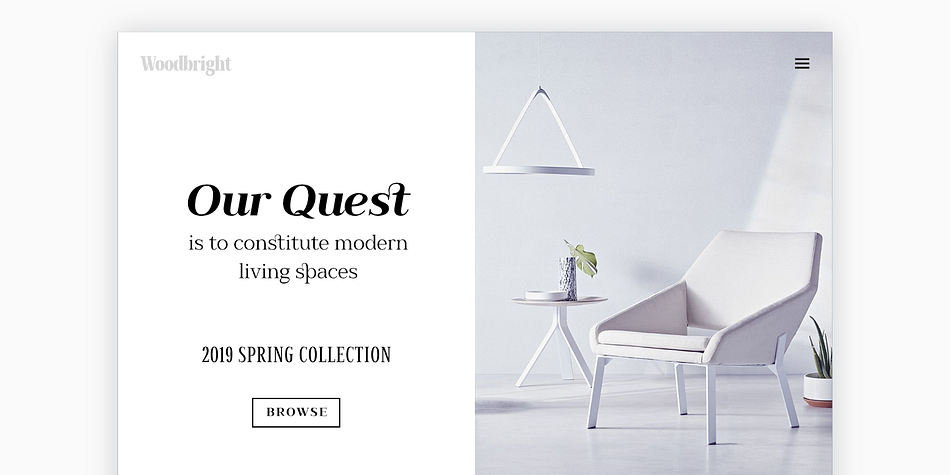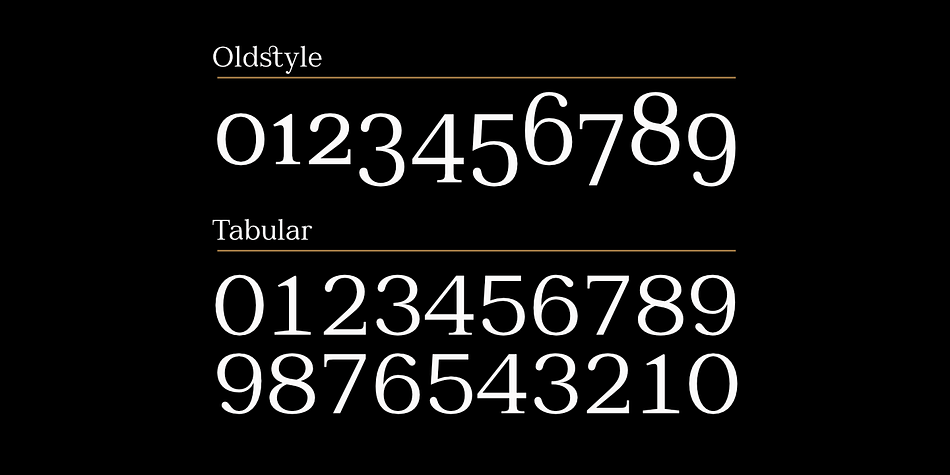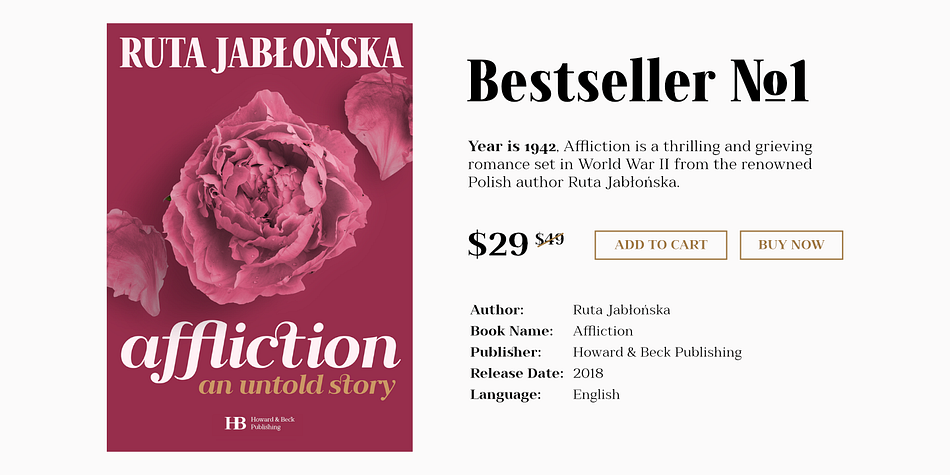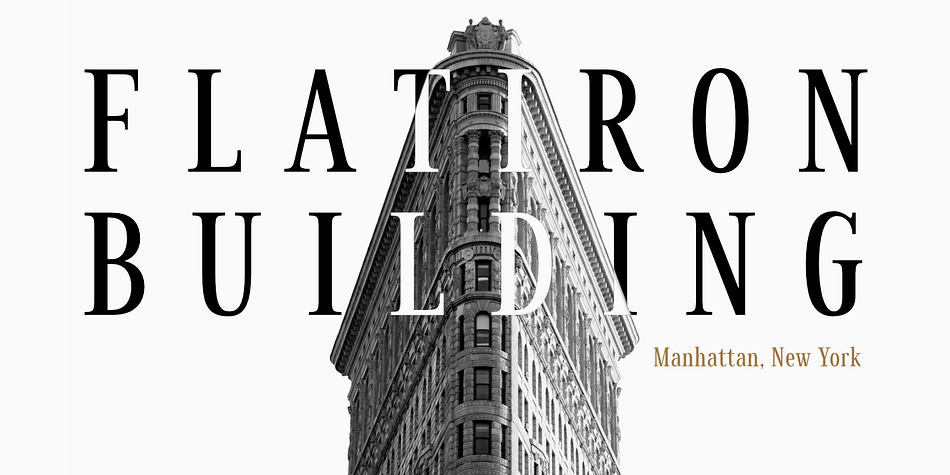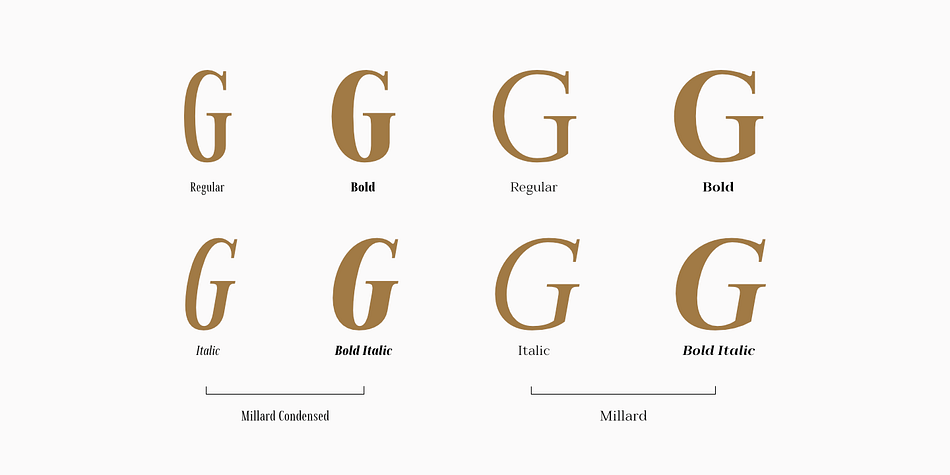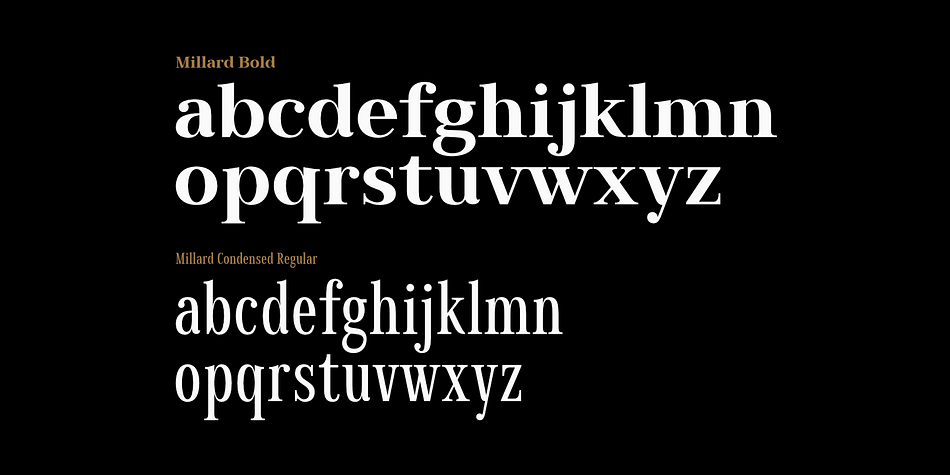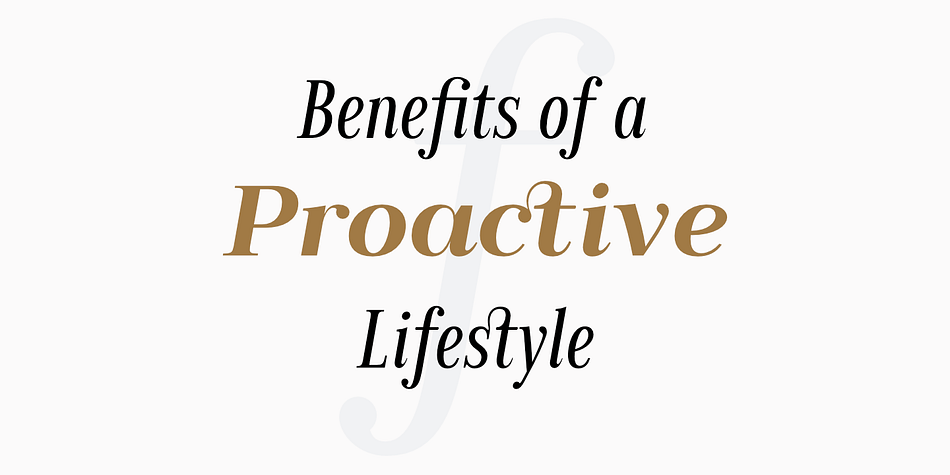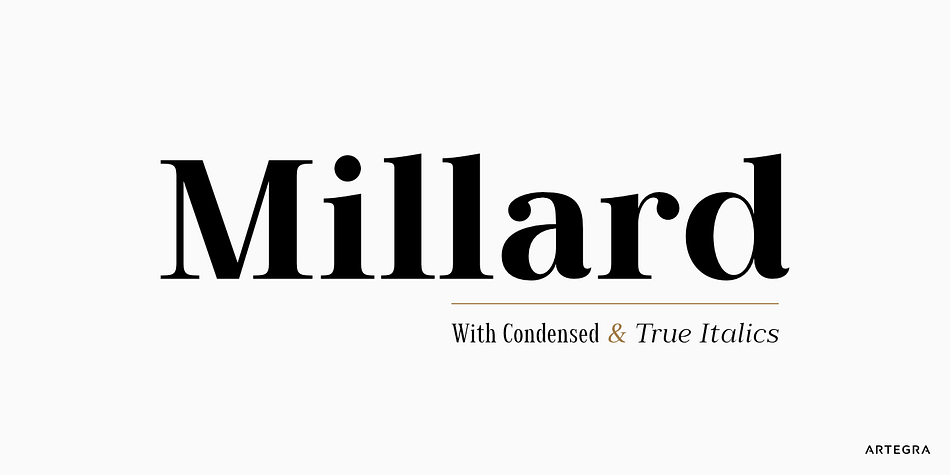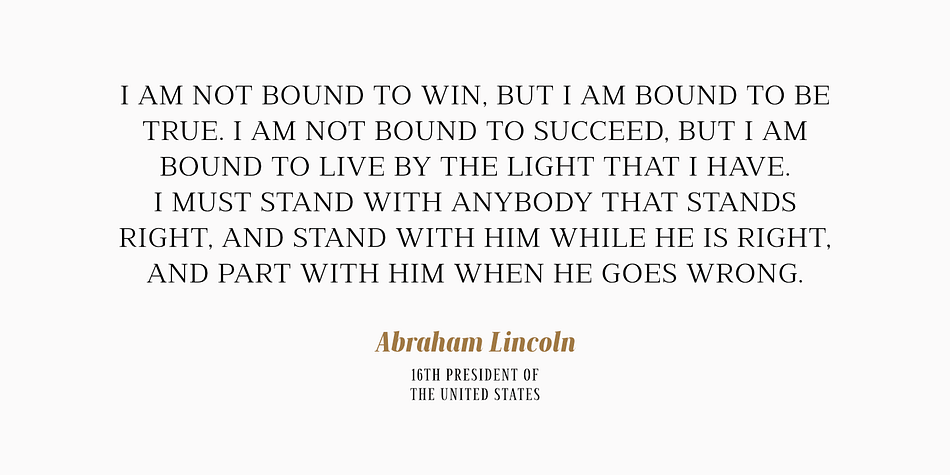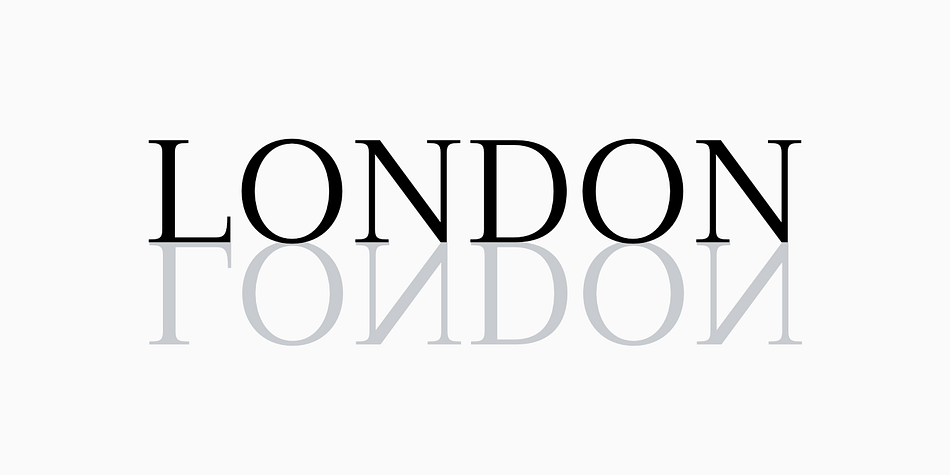
Designed by Ceyhun Birinci, Millard is a serif font family. This typeface has eight styles and was published by Artegra.
When you need a classic serif typeface that is up to the modern standards, Millard comes to your rescue with its alluring beauty and legibility. You have a contemporary serif family that offers great variety with regular and bold weights in both normal and condensed widths, along with their true italics.
Over 500 glyphs in each font offers you the language support you need for all the Latin languages. Opentype features of oldstyle and tabular lining takes care of all your numerical text needs. Complete set of ligatures and discretionary ligatures adds the necessary decorative elements to your design while making it even more enjoyable to read. Language localizations such as transforming acute diacritic to kreska for Polish language is included.
Millard works perfectly as both a text and a display family, makes it a go-to typeface for editorial, branding, logo, poster, packaging, web design and wherever else you need that classy look.